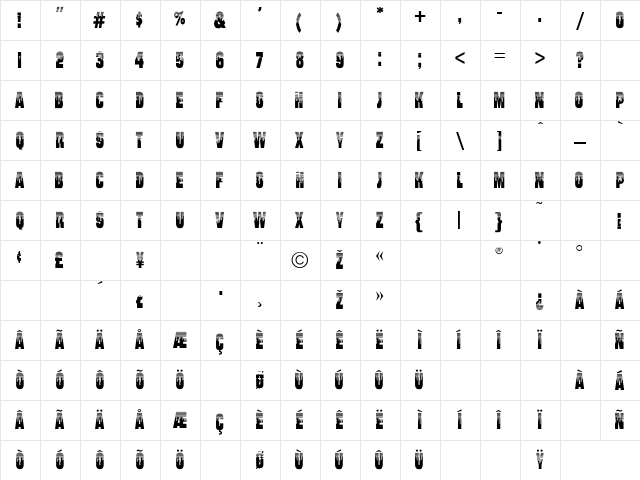
Skyline Regular
Design Context for Skyline
Skyline is a composed and adaptable typeface that performs quietly and consistently across a wide range of design contexts.